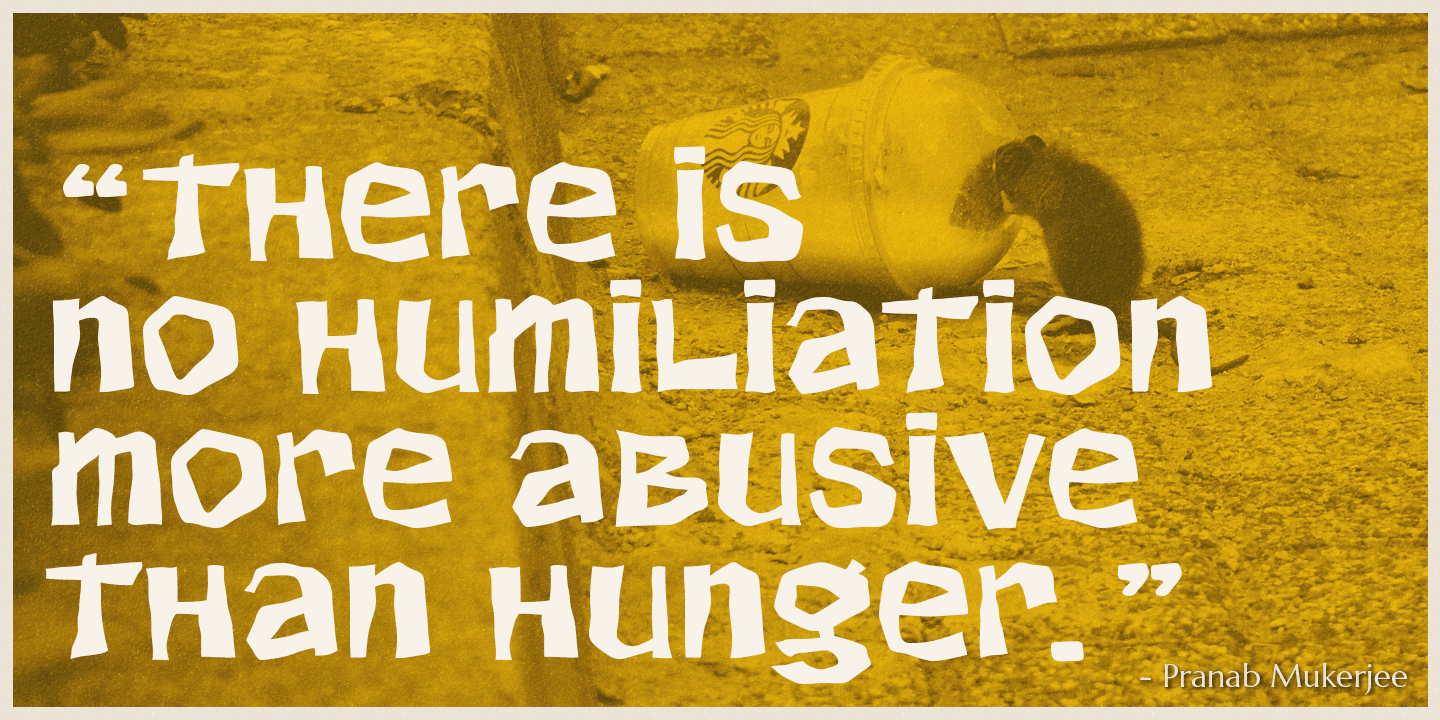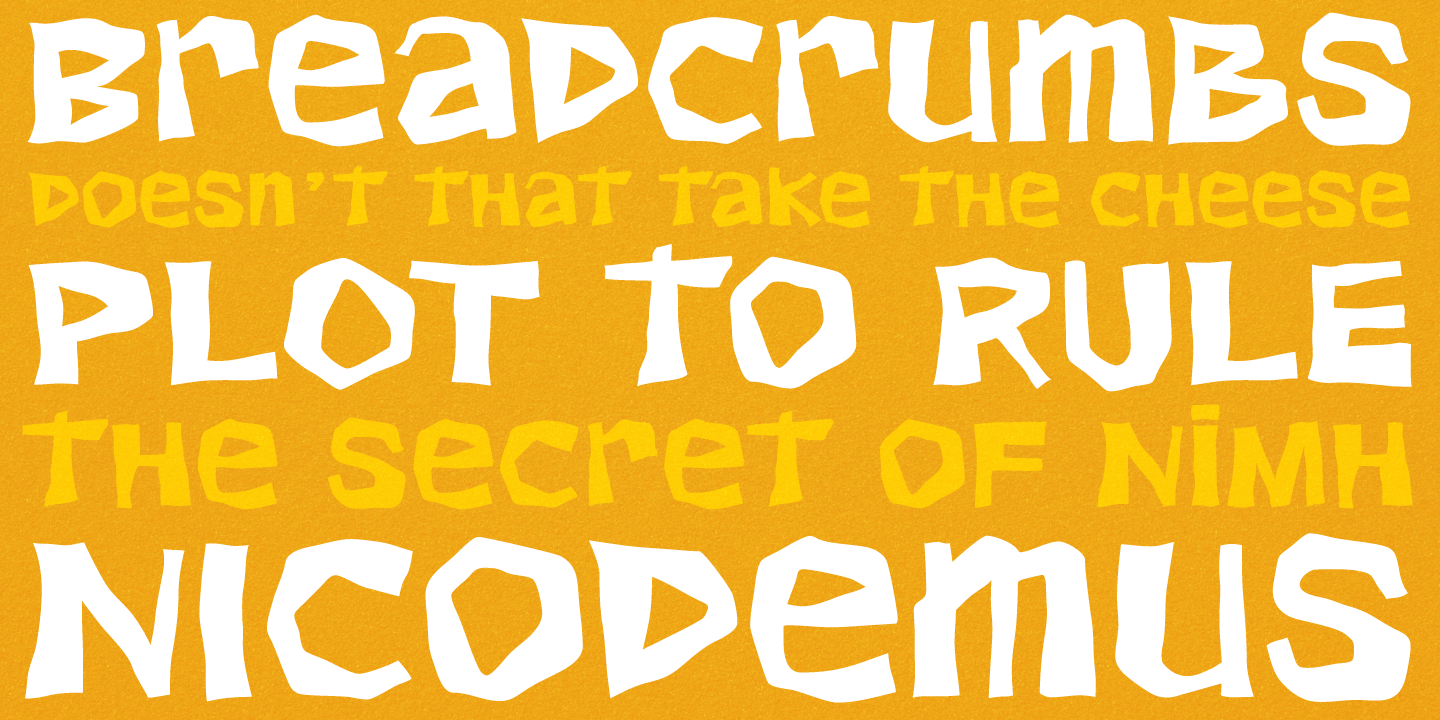
LordRat
Font Family by Astigmatic One Eye
LordRat is a rugged unicase typestyle built for childish and off kilter purposes. A mix of heavy and light with quickcut appearance makes this typestyle offbeat and even festive. Put some dignified childish offbeat flavor into your designs today with LordRat.